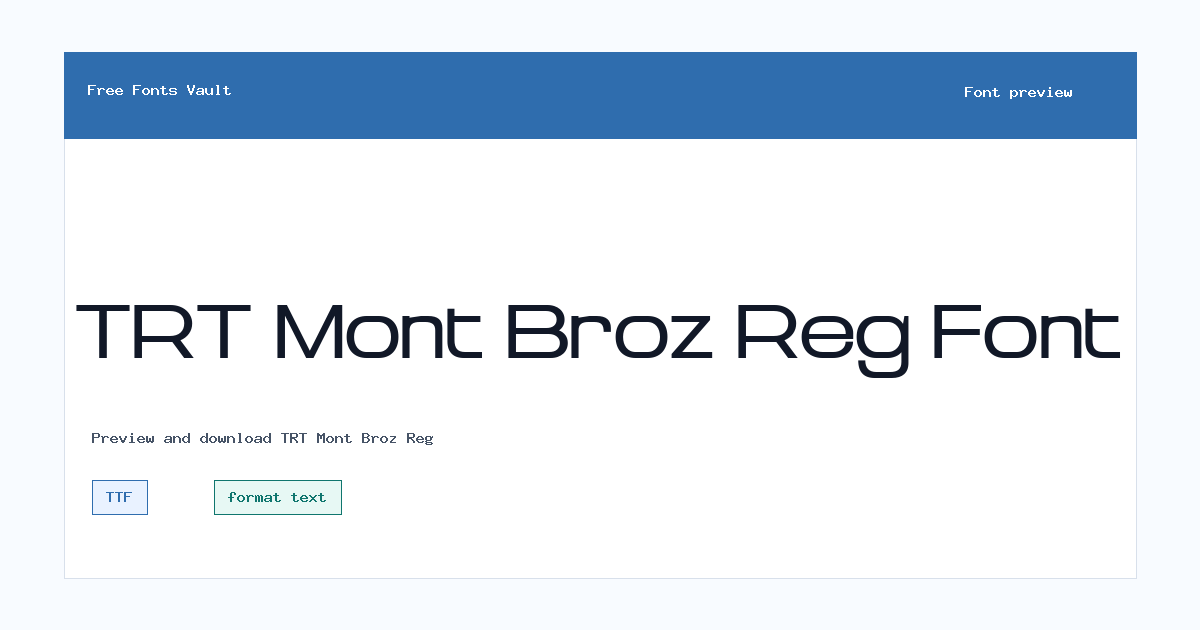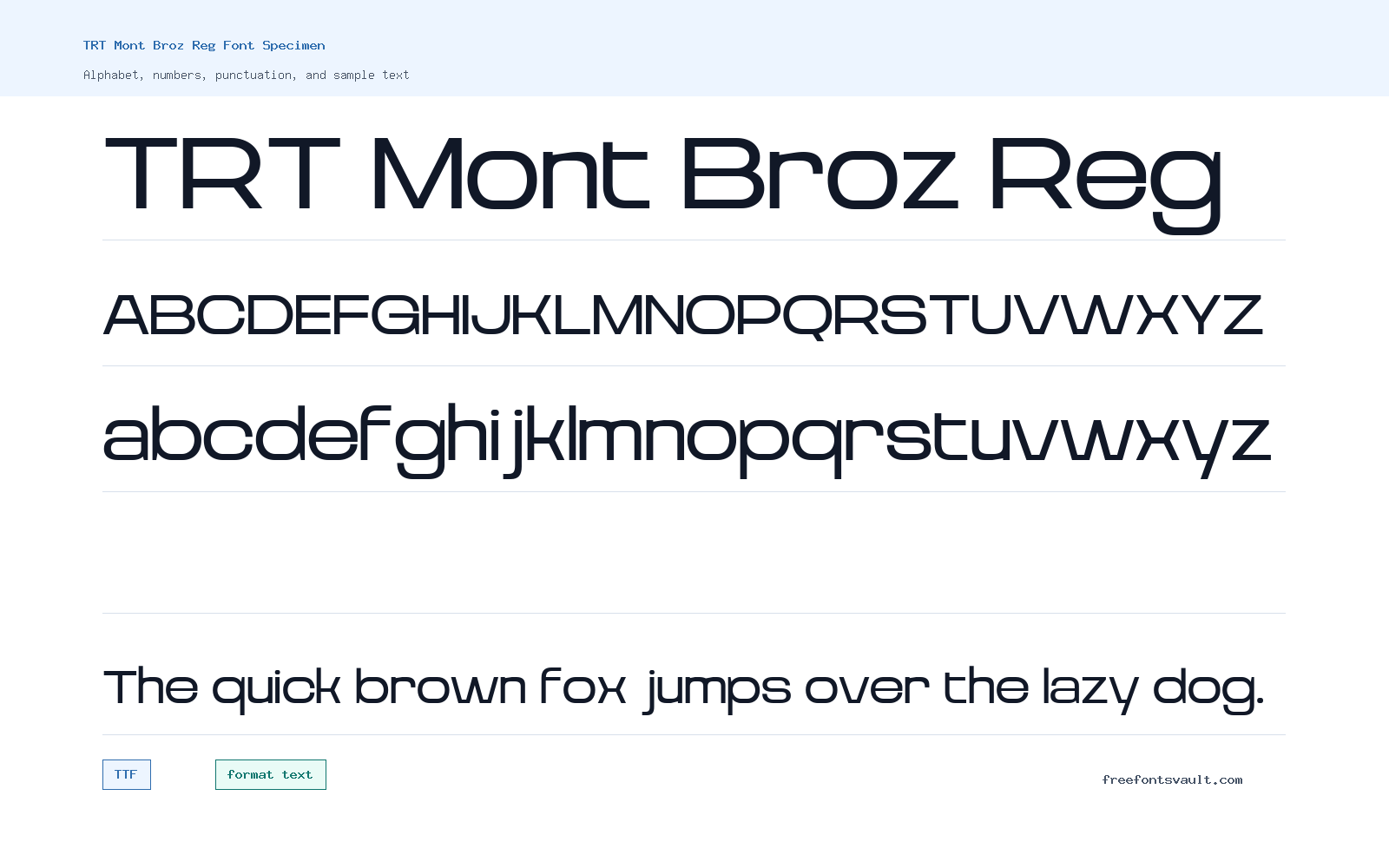
TRT Mont Broz Reg
TRT Mont Broz Reg font preview showing the family name
TRT Mont Broz Reg Font
TRT Mont Broz Reg font specimen showing alphabet, numbers, and sample text
TRT Mont Broz Reg font.
TRT Mont Broz Reg is a regular-weight demo style from the TRT Mont Broz family, a wide geometric sans display design suited to short, bold text settings.
About TRT Mont Broz Reg
TRT Mont Broz Reg has the broad proportions and clean geometric feel you would expect from a modern display sans. The Regular style is useful as a baseline for testing the family before moving into heavier weights. It works best where the letters have room to breathe, such as titles, poster lines, navigation labels, social graphics, and short branding mockups.
The Regular weight is the safest place to judge the overall voice of the family. It shows the wide structure without the heavier pressure of the bold styles or the fragility of the light styles. Use it for title bars, clean poster lines, menu labels, and brand mockups where the text needs presence but should not feel too loud.
• Wide geometric sans display style with a clean regular weight
• Best suited to headlines, labels, poster text, and compact display layouts
• Poster titles and large display text
• Logo or brand concept mockups for personal testing
• Social media graphics with short wording
• Website hero headings, labels, and menu-style text trials
TRT Mont Broz Reg is credited to Abel Aurelia Thalitha of Truetype, with the broader demo family also shown under Truetype/True Type sources.
Use this Regular style to test the font’s width, spacing, and tone in short copy. Check punctuation, numbers, and any special characters you need, because demo editions may not include the full character set. If a layout feels too wide, reduce the word count before squeezing the font horizontally.
What is TRT Mont Broz Reg best used for?
It is best used for short display text such as headings, posters, labels, social graphics, and personal design tests.